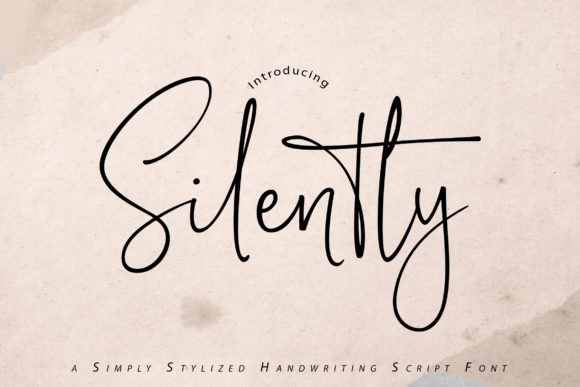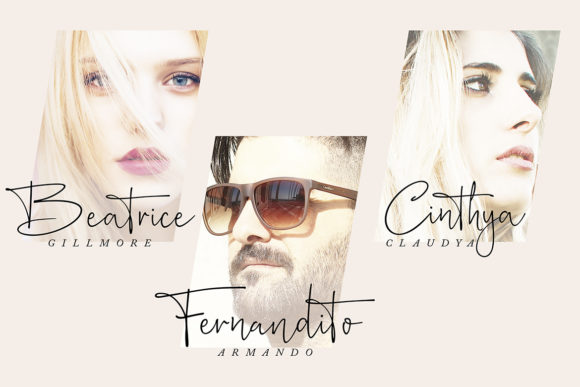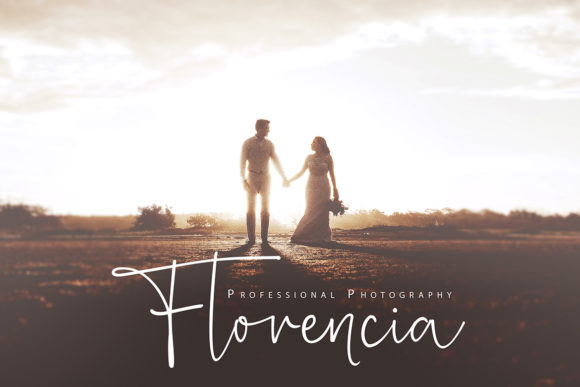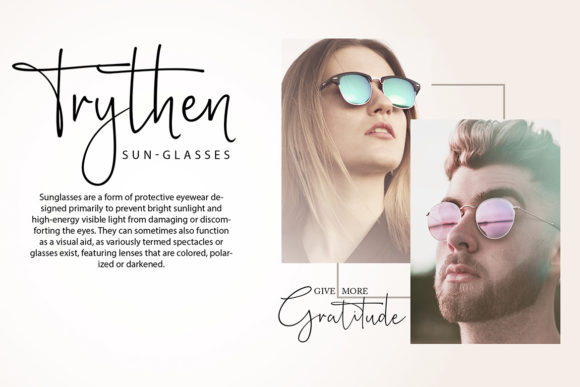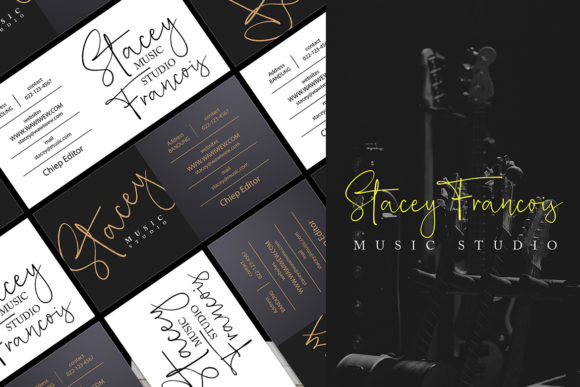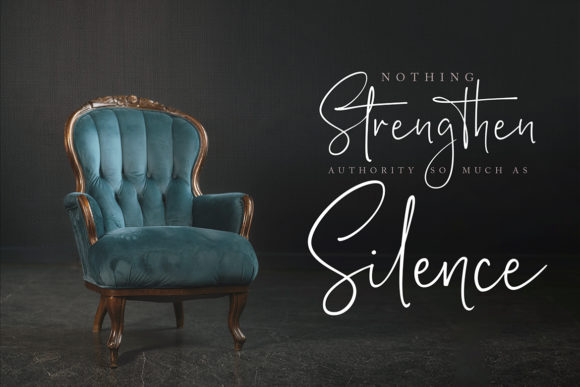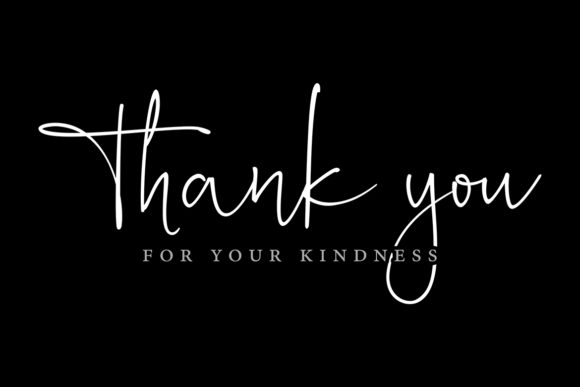
HomeScript FontsSilently Font Script Fonts Silently Font FacebookXPinterestWhatsApp Silently Font Poster 2 Silently Font Poster 3 Silently Font Poster 4 Silently Font Poster 5 Silently Font Poster 6 Silently Font Poster 7 About Silently Font Silently features widely drawn letters that give this extraordinary script an incredibly authentic vibe! DOWNLOAD ON CREATIVE FABRICAThis font is sold and delivered by Creative Fabrica. Font Canyon may earn a commission if you buy through this link. People also explored Snowball Font Tropical Lemon Font Kathaline Font Mother Day Font Festival Font Shooters Font Linesy Font Happy Birthday Font Font Meteor Font 363 0 TagsSilently Font Previous articleMargaritha Tropicana FontNext articleAutogenic Font LEAVE A REPLY Cancel reply Comment: Please enter your comment! Name:* Please enter your name here Email:* You have entered an incorrect email address! Please enter your email address here Website: Save my name, email, and website in this browser for the next time I comment. Personal Use Free Pelmeshka Personal Use Free Read more about this font Kitchen Blue Personal Use Free Read more about this font Mandara Personal Use Free Read more about this font Blessed Font Personal Use Free Read more about this font BLOG How to Cut Any Font on Cricut: Convert a Font to SVG (Free) Turn any font into a clean SVG so it cuts crisp on Cricut - a quick 3-step workflow using a free font-to-SVG tool. Transform Your Website: Elevate Your Typography with 7 Best Web Font Generators Elegant Wedding Invitation Fonts – Handwritten & Script Fonts Free vs Paid Fonts: Why Investing in Premium Fonts Is Worth It